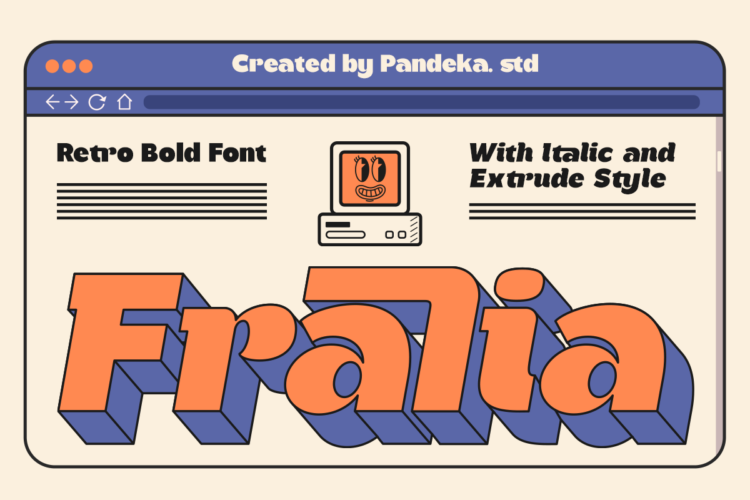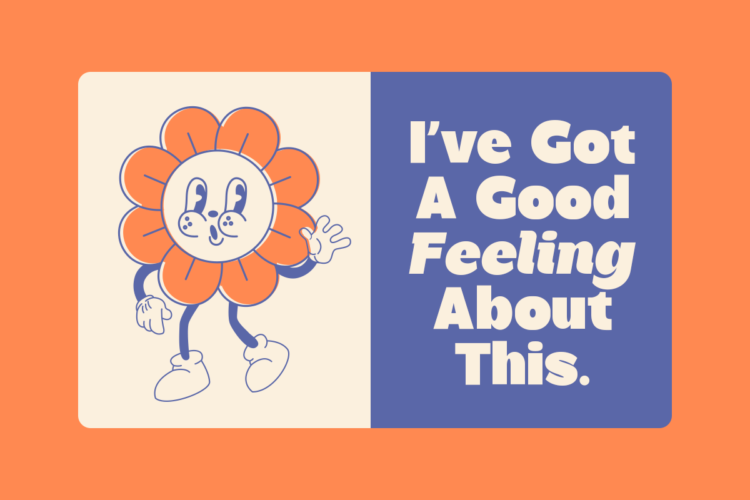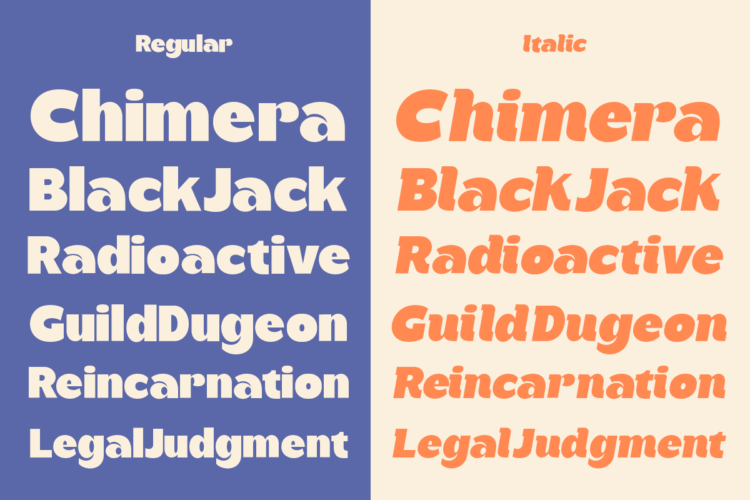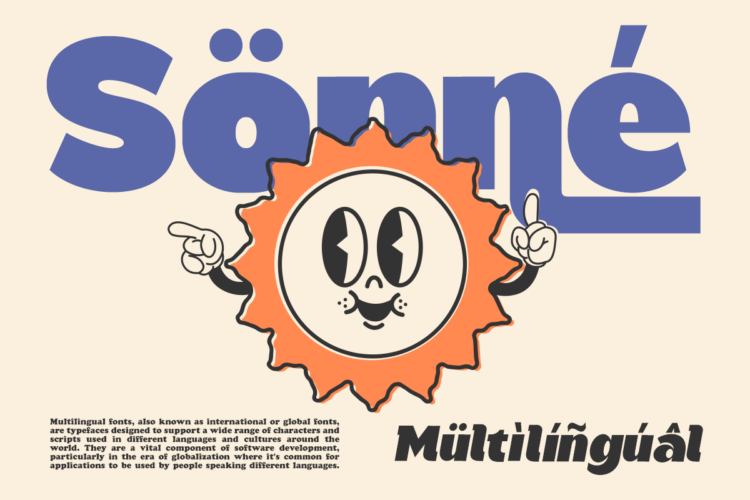
Fralia Regular
Fralia Italic
Introducing Fralia – a fun and bold sans cartoon font by Pandeka Studio.
Fralia was designed with inspiration from playful cartoons and comic books, capturing the essence of lively and energetic designs. Released in June 2024, Fralia comes with 2 style : Regular and Italic
Fralia contains everything you need to create eye-catching typography – from headline fonts to body text fonts – all in one place. Whether you’re new to design or a seasoned professional, Fralia has you covered. It’s perfect for modern and vintage designs alike and pairs effortlessly with graphic elements like illustrations and photography. This font is ideal for logotypes, branding, titles, and packaging.
• Regular and Italic
• Multilingual Support
Fralia – Cartoon Retro Bold